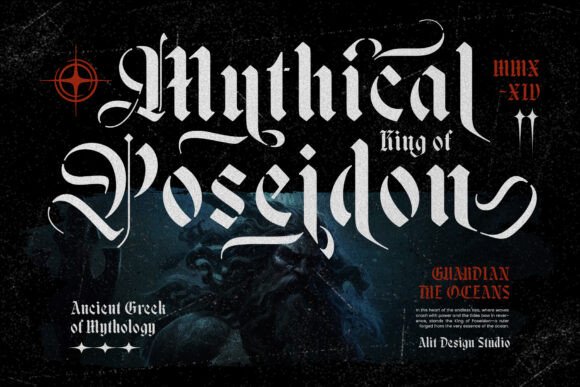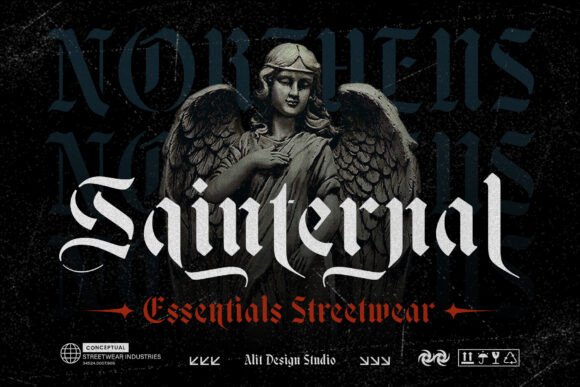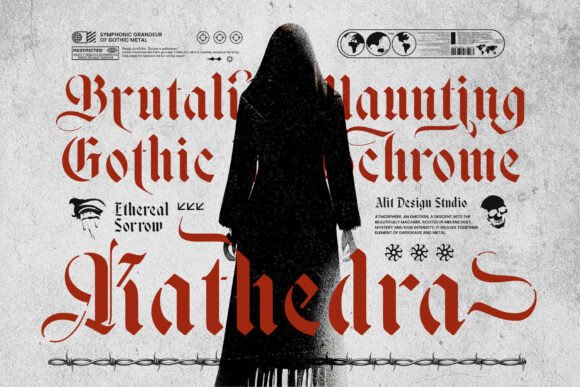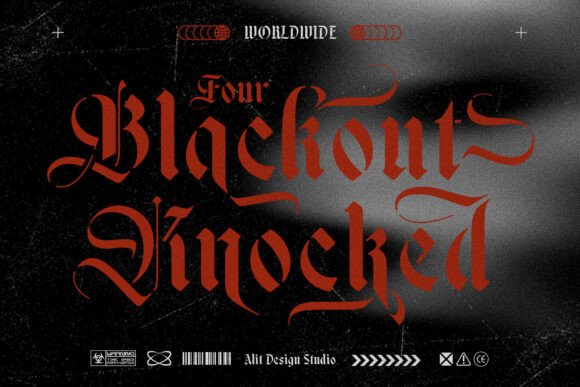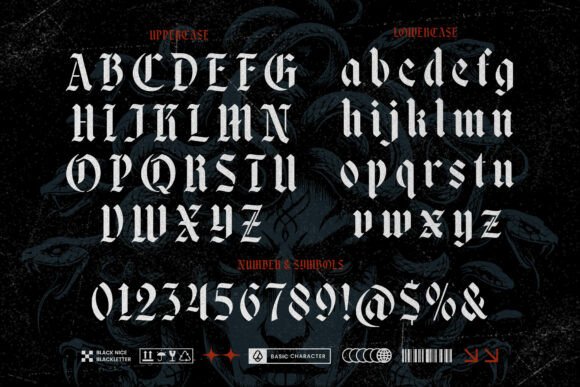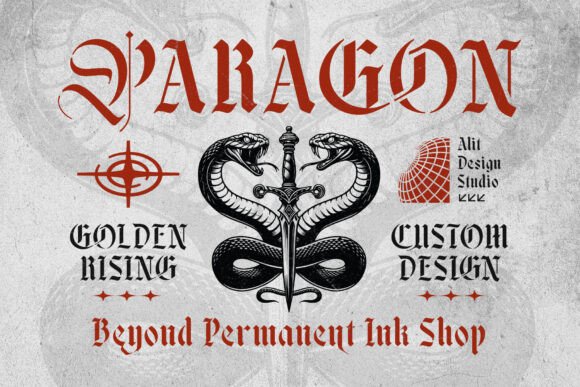
I still remember the frustration of working on a branding project for a Gothic-inspired tattoo studio. My client wanted a font that exuded both elegance and edginess, but I was struggling to find the perfect fit. That’s when I stumbled upon the Black Nice Typeface – a game-changer that combined the best of blackletter and stencil designs.
What Makes Black Nice Typeface Special?
Black Nice Typeface is a striking blend of blackletter elegance and stencil precision, designed to give your typography an unmistakable presence. Whether you’re working on branding, apparel, posters, tattoos, packaging, or editorial projects, this typeface offers the perfect balance of vintage gothic style and contemporary stencil aesthetics.
Designed for Impact & Versatility
With its stencil-inspired cutouts, Black Nice Typeface maintains the intricate beauty of traditional blackletter forms while ensuring optimal readability. Every curve and gap is meticulously calculated, ensuring the structural integrity of each letter remains intact – making it functional for both print and digital media.
Font Features
• 🏆 Massive Character Set – 822 Glyphs: A comprehensive set of characters to give you ultimate creative freedom. Includes uppercase & lowercase letters, numbers, punctuation, and special characters.
• ✨ Alternates & Swashes – Customize your text with a range of stylish alternates and swashes to add a personal touch.
• ✅ Unique Style: The blend of blackletter and stencil designs is truly one-of-a-kind.
• ✨ Highly Versatile: Perfect for a wide range of projects, from branding to editorial work.
• 📚 Extensive Character Set: With 822 glyphs, you’ll have plenty of creative options.
• 🤔 Learning Curve: With so many glyphs and alternates, it may take some time to get familiar with the font’s features.
• ⚠️ Overuse: Be careful not to overuse the font’s decorative elements, as they can quickly become overwhelming.
The Story Behind Black Nice Typeface
Black Nice Typeface was designed by a team of typographers who sought to create a unique fusion of blackletter and stencil designs. Inspired by the intricate details of Gothic architecture and the precision of stencil art, they crafted a font that would be both elegant and bold.
What type of projects is Black Nice Typeface best suited for? Black Nice Typeface is versatile and can be used for a wide range of projects, including branding, apparel, posters, tattoos, packaging, and editorial work.
Is Black Nice Typeface suitable for body text? While Black Nice Typeface is designed for impact and versatility, it may not be the best choice for body text due to its bold and decorative nature. It’s better suited for headlines, titles, and emphasis text.